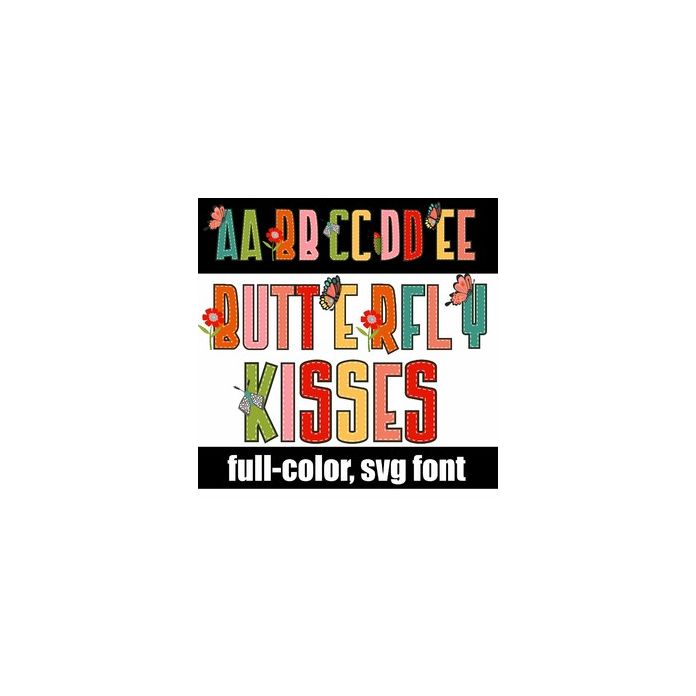
This full-color font features bugs, butterflies, and flowers on the uppercase. There is an alt case w/ additional colors you can access through your system or Silhouette's glyph map.